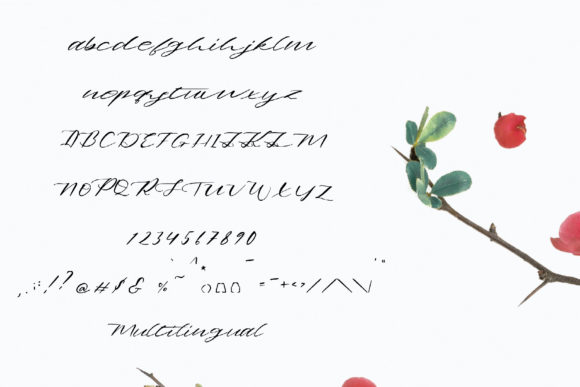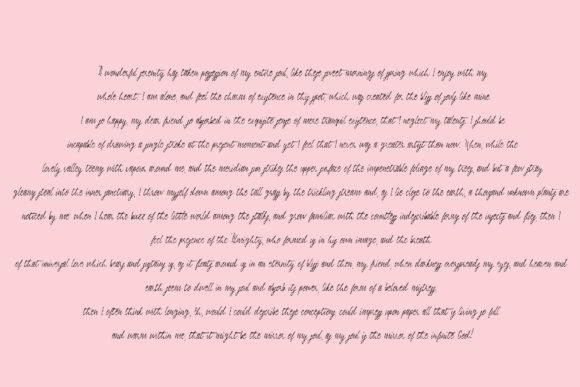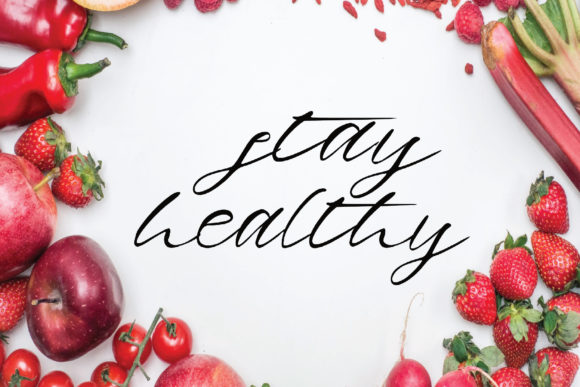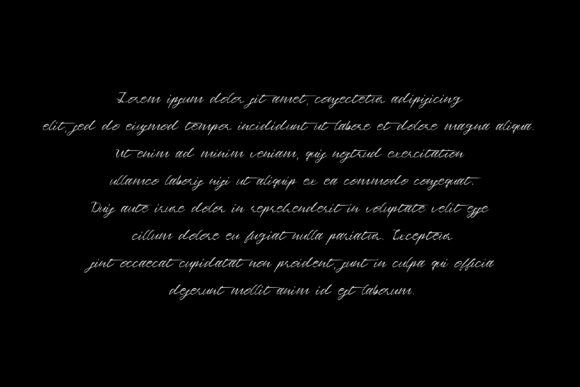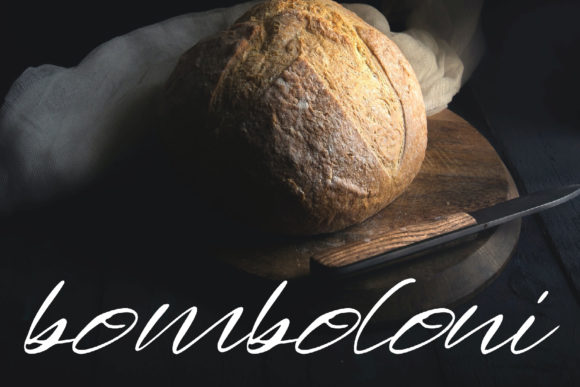
Bomboloni Font: The Charming and Elegant Choice for Designers and Crafters
Bomboloni Font is a beautiful, handwritten typeface that has captured the hearts of designers and crafters alike. Its charming and elegant appearance makes it perfect for a wide range of design projects, from wedding invitations and greeting cards to logos and business cards. In this article, we’ll take a closer look at the Bomboloni Font, its features, and how you can use it to add a touch of sophistication and whimsy to your designs.
The Story Behind Bomboloni Font
Bomboloni Font is a carefully crafted typeface that is designed to evoke a sense of elegance and refinement. Its creator, available on Creative Market, drew inspiration from traditional calligraphy and handwriting to create a unique and captivating font. The result is a beautiful, handwritten typeface that feels both charming and sophisticated.
Key Features of Bomboloni Font
So, what makes Bomboloni Font so special? Here are a few of its key features:
• Handwritten appearance: Bomboloni Font has a beautiful, handwritten appearance that adds a touch of warmth and personality to any design.
• Elegant and refined: Despite its playful feel, Bomboloni Font is also surprisingly elegant and refined, making it perfect for more formal design projects.
• Versatile: Bomboloni Font is incredibly versatile, and can be used for a wide range of design projects, from wedding invitations and greeting cards to logos and business cards.
• Easy to read: Despite its ornate appearance, Bomboloni Font is surprisingly easy to read, making it perfect for designs that require a lot of text.
Uses for Bomboloni Font
So, how can you use Bomboloni Font in your designs? Here are a few ideas to get you started:
• Wedding invitations: Bomboloni Font is perfect for wedding invitations, adding a touch of elegance and sophistication to your design.
• Greeting cards: Whether you’re designing a birthday card or a holiday greeting, Bomboloni Font is a great choice.
• Logos and branding: Bomboloni Font can also be used to create beautiful logos and branding materials, adding a touch of personality to your business.
• Business cards: Make a great impression with Bomboloni Font on your business cards, adding a touch of elegance and refinement.
• Quotes and posters: Bomboloni Font is also perfect for designing quotes and posters, adding a touch of whimsy and personality to your design.
Tips for Using Bomboloni Font
Here are a few tips for using Bomboloni Font in your designs:
• Use it sparingly: While Bomboloni Font is beautiful, it can be overwhelming if used too much. Try using it sparingly to add a touch of elegance to your design.
• Pair it with other fonts: Bomboloni Font pairs well with other fonts, such as sans-serif fonts. Try pairing it with a clean, modern font to create a beautiful contrast.
• Experiment with colors: Bomboloni Font looks great in a variety of colors, from bold and bright to soft and pastel. Experiment with different colors to find the perfect look for your design.
Bomboloni Font is a beautiful, handwritten typeface that is perfect for designers and crafters looking to add a touch of elegance and whimsy to their designs. Its charming and refined appearance makes it perfect for a wide range of design projects, from wedding invitations and greeting cards to logos and business cards. With its versatility, ease of use, and beautiful appearance, Bomboloni Font is a great choice for any designer or crafter looking to create something special.